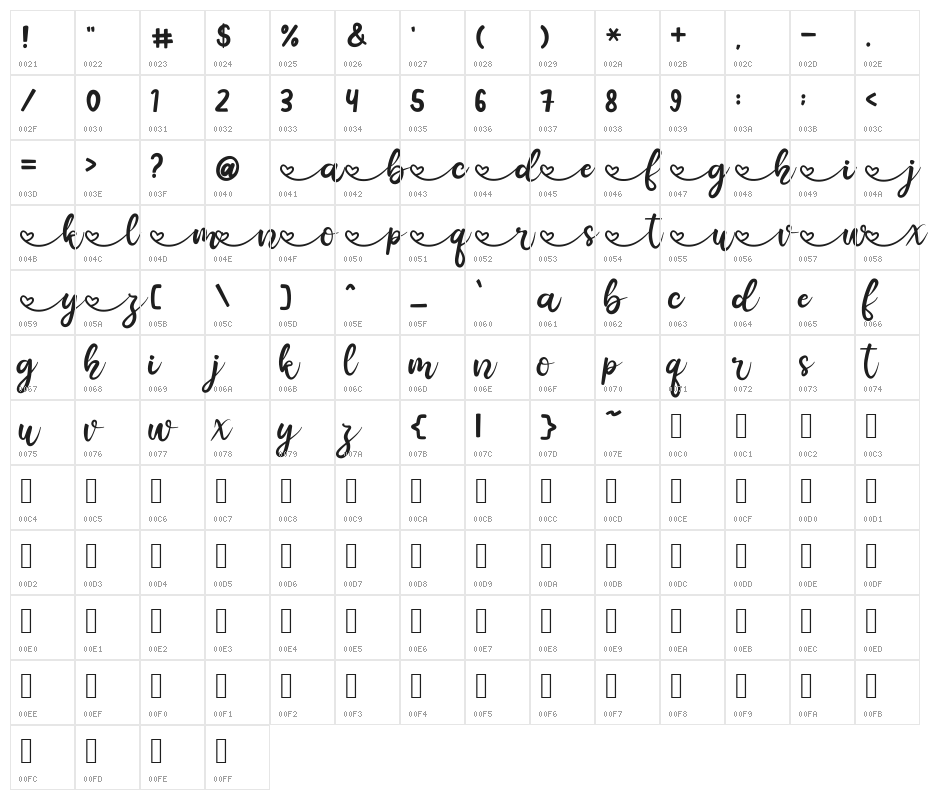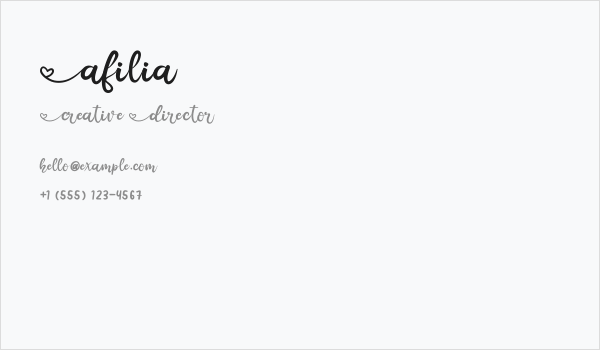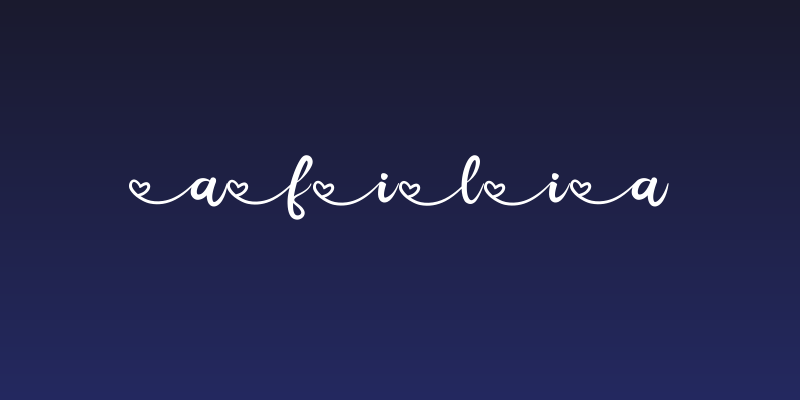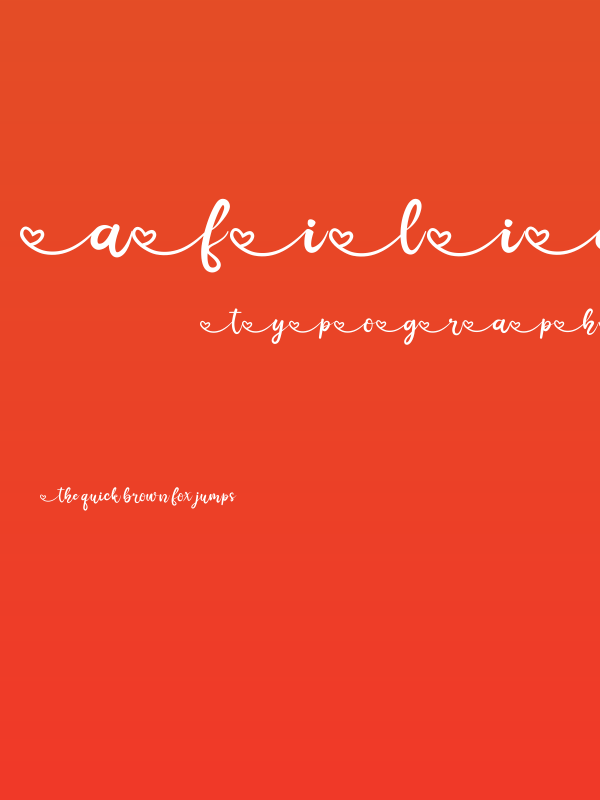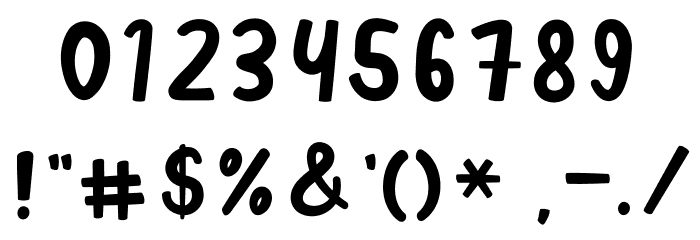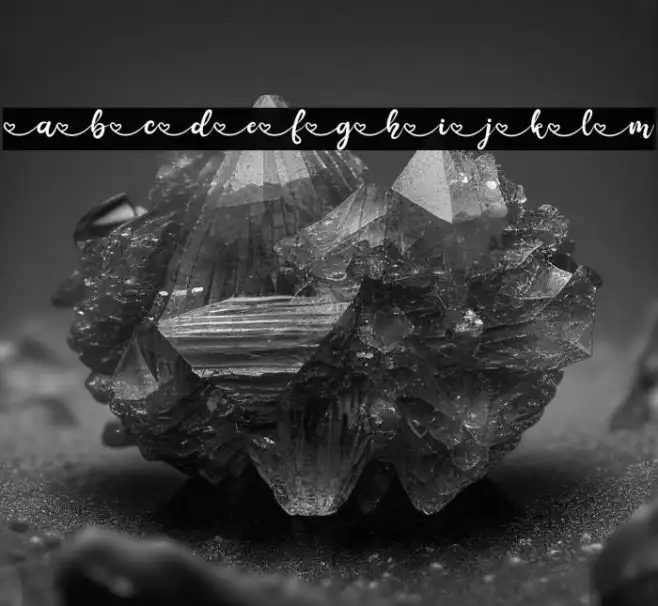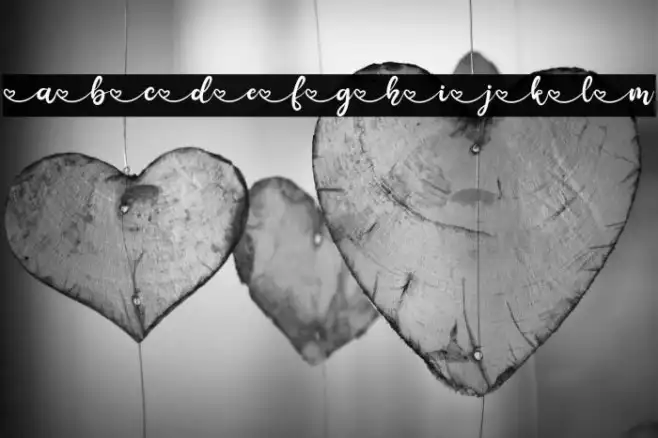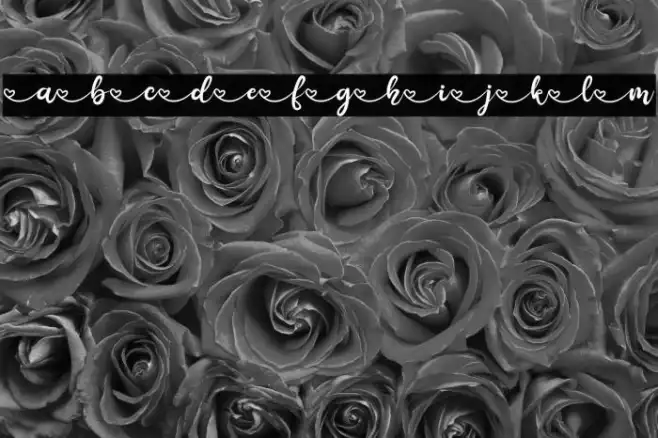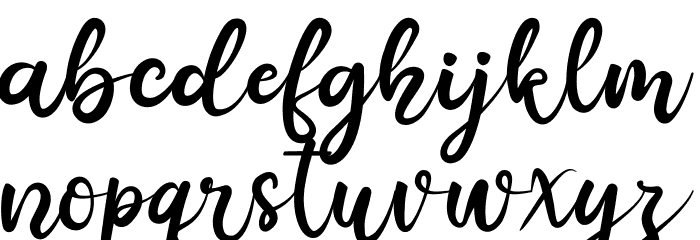
Afilia Font
Afilia Description
This font features a playful and elegant script style with a handwritten touch. The uppercase letters are bold and flowing, while the lowercase letters exhibit a charming, cursive design with loops and swirls, adding a whimsical feel. The numbers are bold and rounded, maintaining the playful aesthetic. Special characters are creatively integrated, matching the overall style. The font's design is consistent and cohesive, making it suitable for a variety of creative projects.